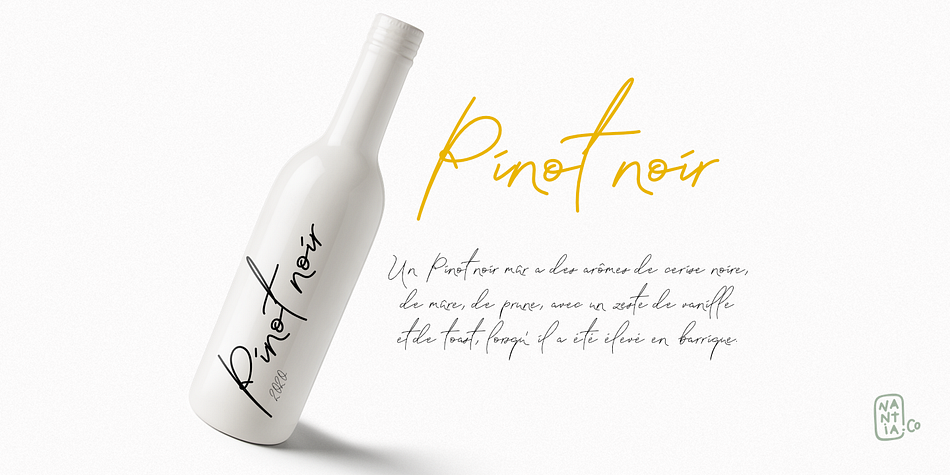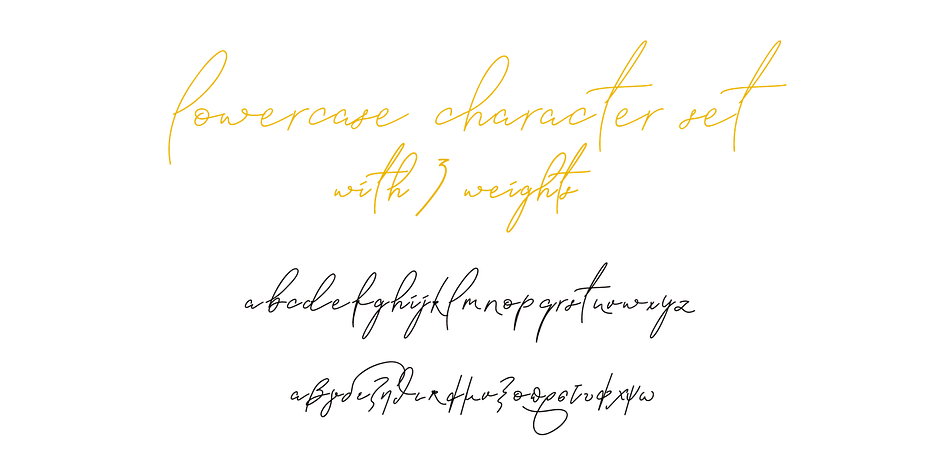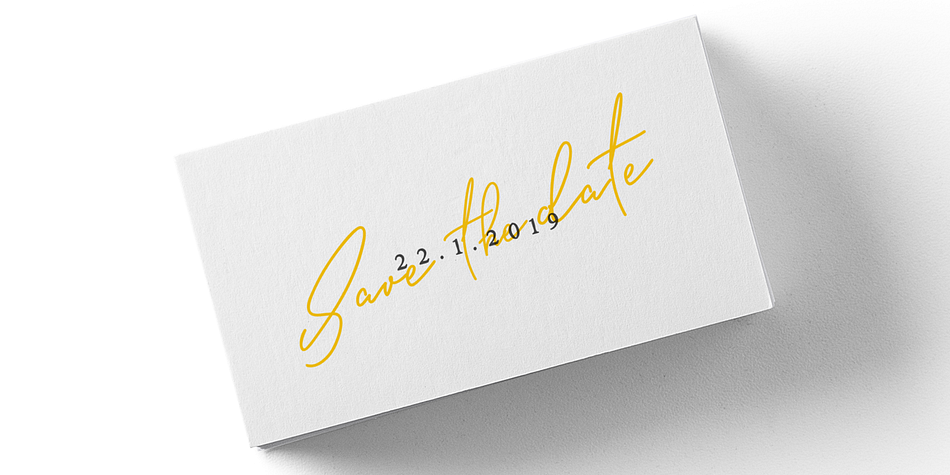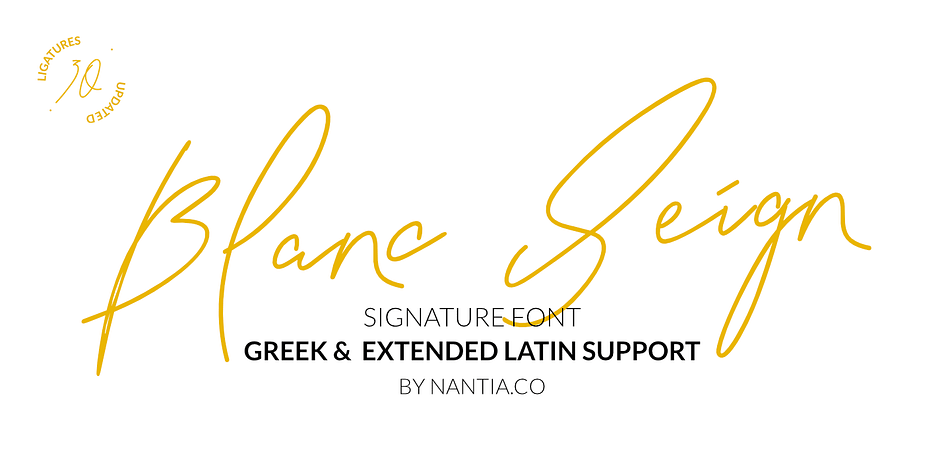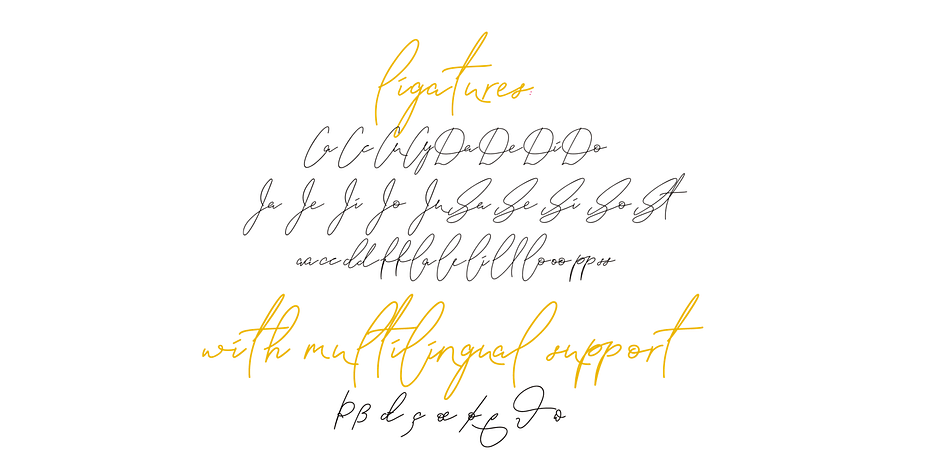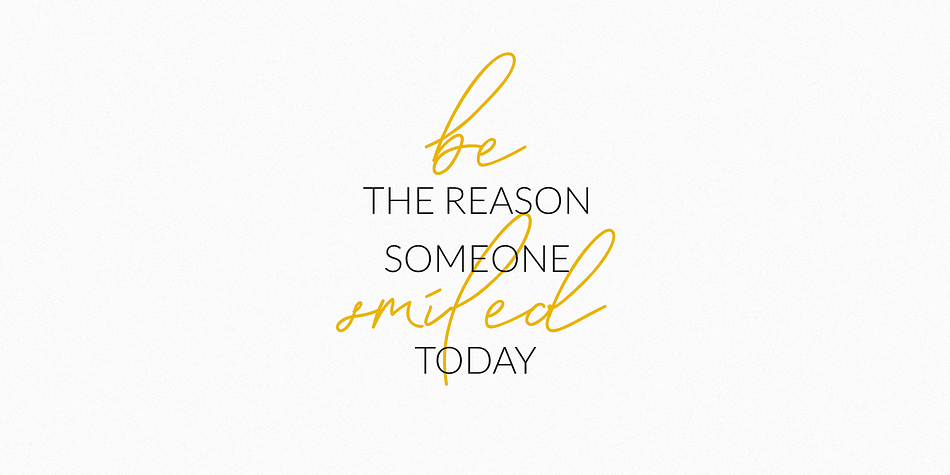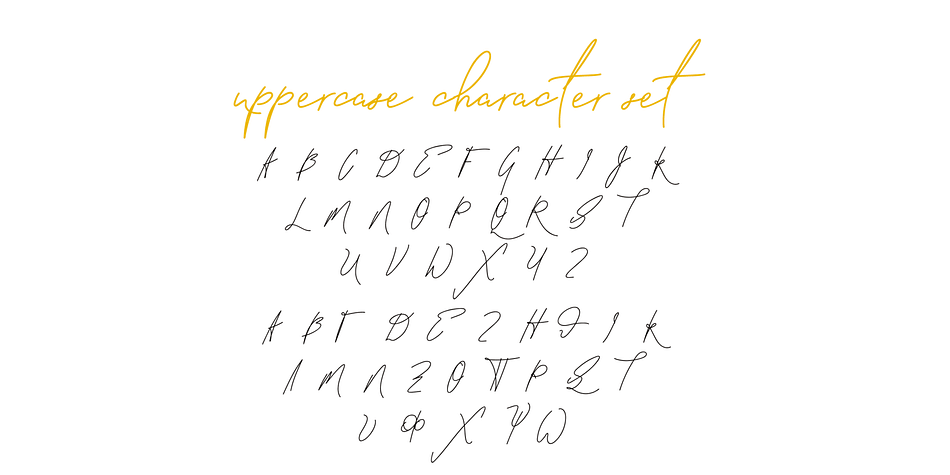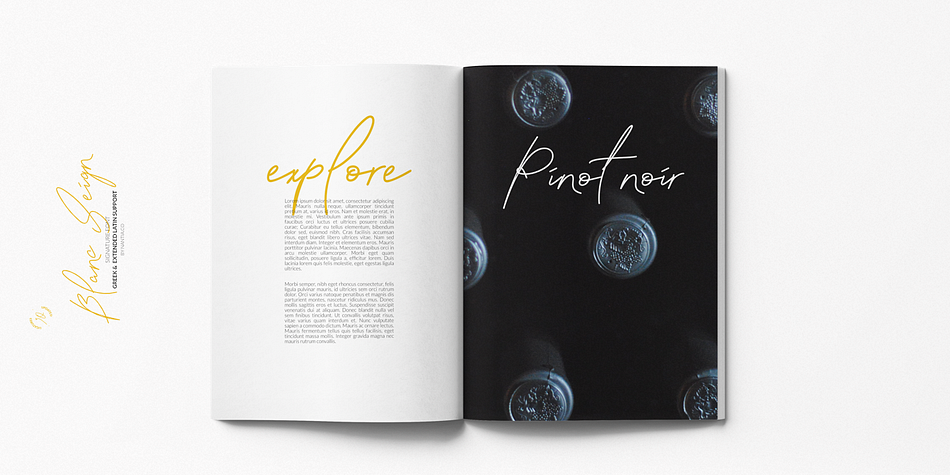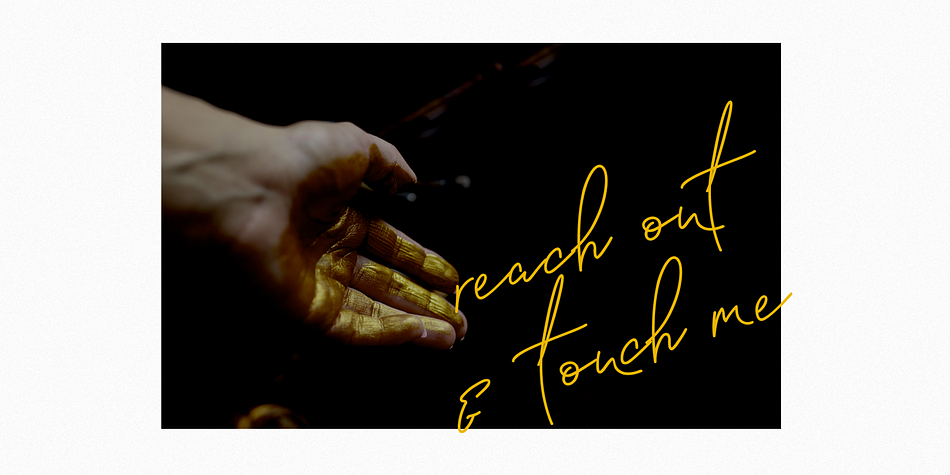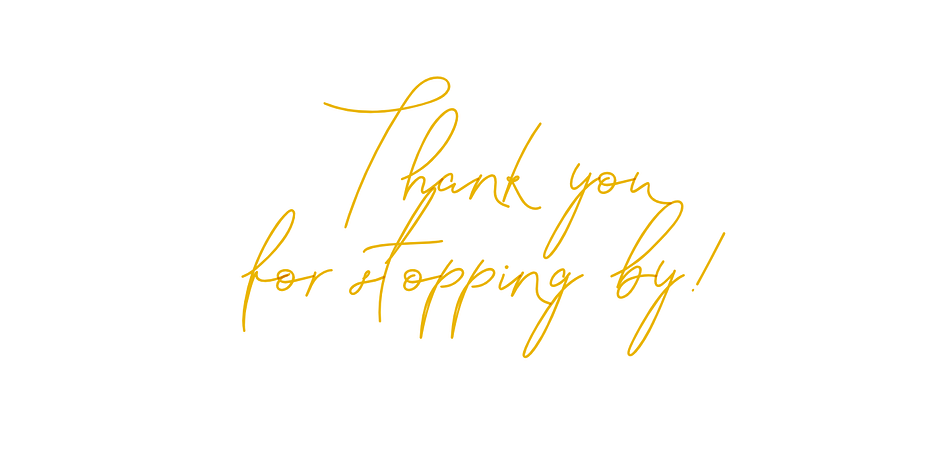
Blanc Seing is a modern calligraphy and script font family. This typeface has three styles and was published by Konstantina Louka.
Signature Font Blanc Seing in 3 weights
The Signature Font Blanc Seing is a signature decorative font with which you can achieve a handwritten-type lettering feeling. Signature Font Blanc Seing is a multilingual lettering font with Greek (of course), Latin characters and diacritics. This signature style is perfect for your modern graphic design needs. This font has a really nice flow so you use it in a large text if you want to give them a touch of personality. It can be used on social media content, for branding or packaging.
Also, Signature Font Blanc Seing is the ideal typeface for organic products branding and packaging. Additionally, you can use Signature Font Blanc Seing romantic vibes for wedding invitation designs. Especially if you are looking for a font for Instagram quote posts or any other social media content, this typeface is for you!